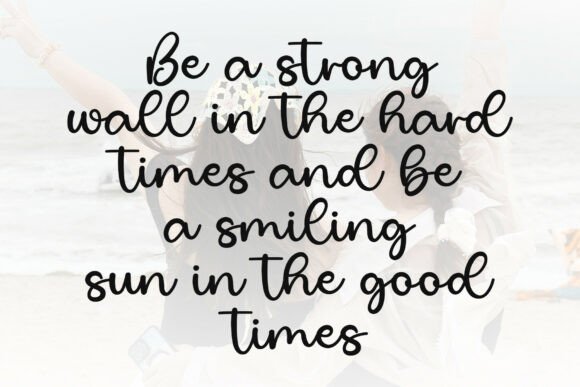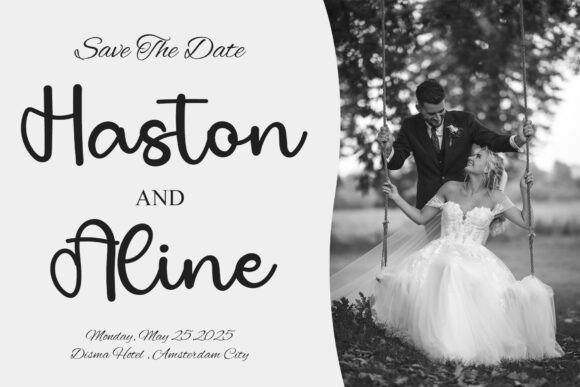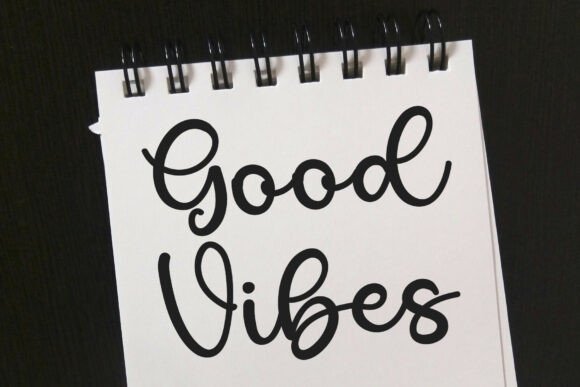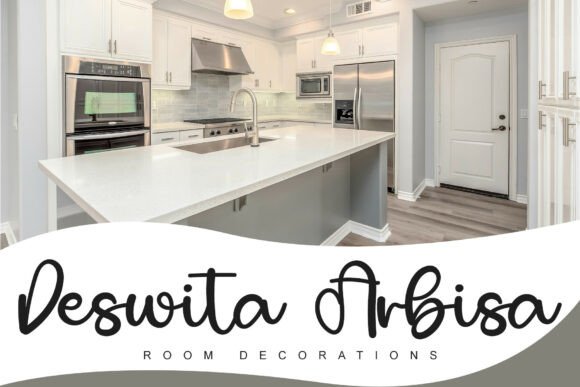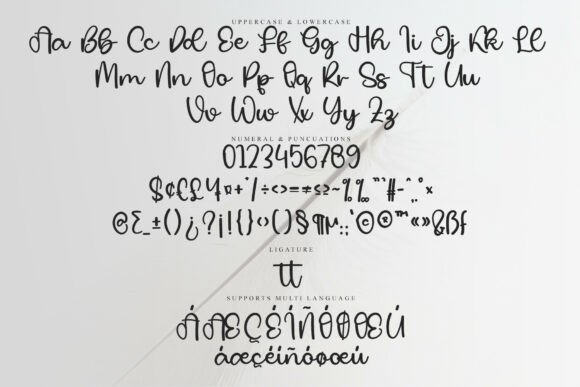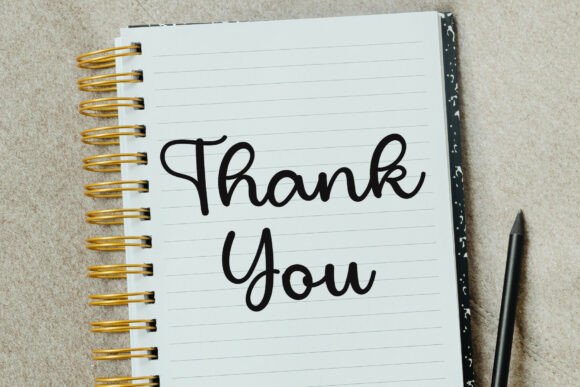
Unleash Your Creativity with Adventure Signature Font
Are you a designer, crafter, or DIY enthusiast looking for a unique and elegant font to elevate your creative projects? Look no further than Adventure Signature, a magical handwritten font that adds a touch of sophistication to any design. In this article, we’ll explore the features and benefits of Adventure Signature, and how it can help you turn your creative ideas into stunning works of art.
The Story Behind Adventure Signature
Adventure Signature is a carefully crafted handwritten font, designed to bring a sense of elegance and whimsy to your designs. With its flowing lines and delicate curves, this font is perfect for adding a personal touch to your creative projects. Whether you’re looking for fonts for Instagram, calligraphy scripts for DIY projects, or a unique font for your blog or website, Adventure Signature is the perfect choice.
Key Features of Adventure Signature
- Handwritten with love: Adventure Signature is a genuine handwritten font, created with precision and care to ensure that every letter and stroke is unique and authentic.
- Elegant and whimsical: This font combines elegance and playfulness, making it perfect for a wide range of creative projects, from DIY crafts to professional designs.
- Highly versatile: Adventure Signature is suitable for various design applications, including Instagram posts, blog headers, social media graphics, and more.
Adventure Signature offers numerous benefits for designers and crafters, including:
- Unique and distinctive: This font helps you stand out from the crowd, adding a personal touch to your designs and projects.
- Time-saving: With Adventure Signature, you can create stunning designs quickly and easily, without spending hours on tedious typography.
- Inspires creativity: This font’s elegance and whimsy inspire creativity, helping you to think outside the box and come up with innovative ideas.
- Professional results: Adventure Signature helps you achieve professional-looking results, even if you’re not a seasoned designer.
Using Adventure Signature in Your Designs
Adventure Signature is incredibly easy to use, and can be applied to a wide range of design projects. Here are some ideas to get you started:
- Instagram posts and stories: Add a touch of elegance to your Instagram feed with Adventure Signature.
- DIY projects: Use this font to create beautiful calligraphy scripts for your DIY projects, such as handmade cards, gift tags, and more.
- Blog or website headers: Elevate your blog or website with a unique and elegant font that reflects your brand’s personality.
- Social media graphics: Create stunning social media graphics, such as Facebook posts, Twitter headers, and more.
Adventure Signature is a magical handwritten font that adds a touch of elegance and whimsy to any design. With its highly versatile and easy-to-use features, this font is perfect for designers, crafters, and DIY enthusiasts looking to elevate their creative projects. Whether you’re looking for fonts for Instagram, calligraphy scripts for DIY projects, or a unique font for your blog or website, Adventure Signature is the perfect choice. So why wait? Unleash your creativity with Adventure Signature Font today!